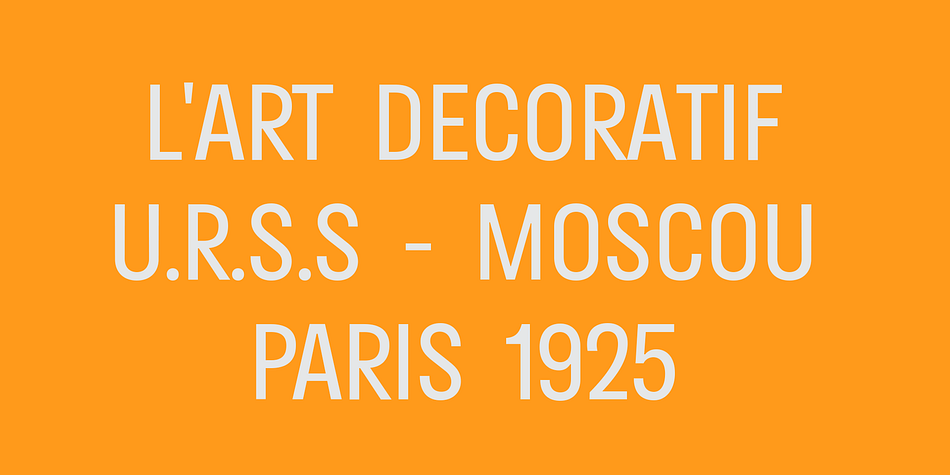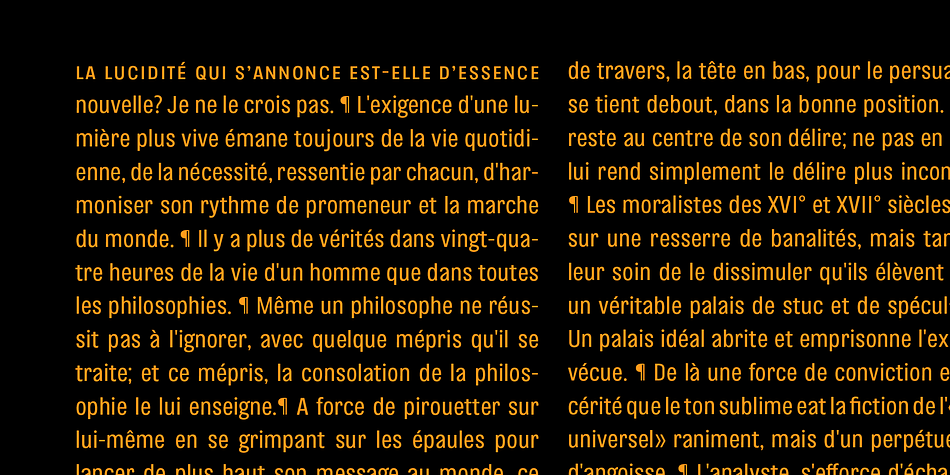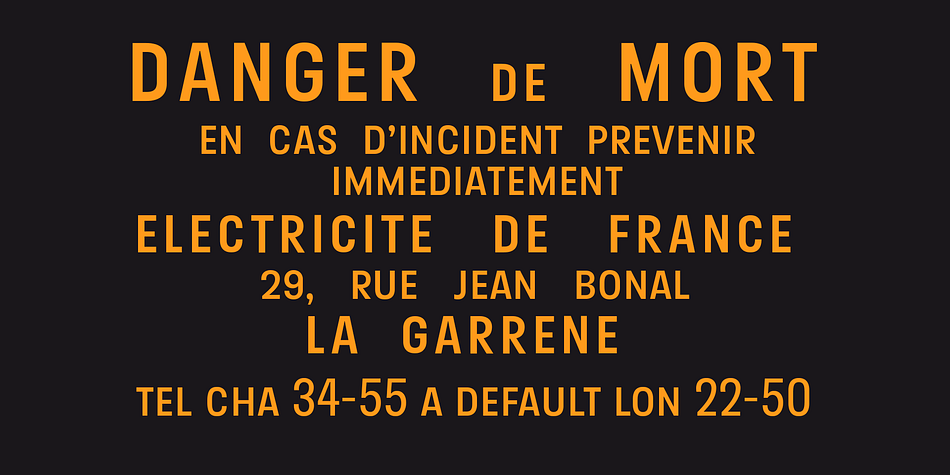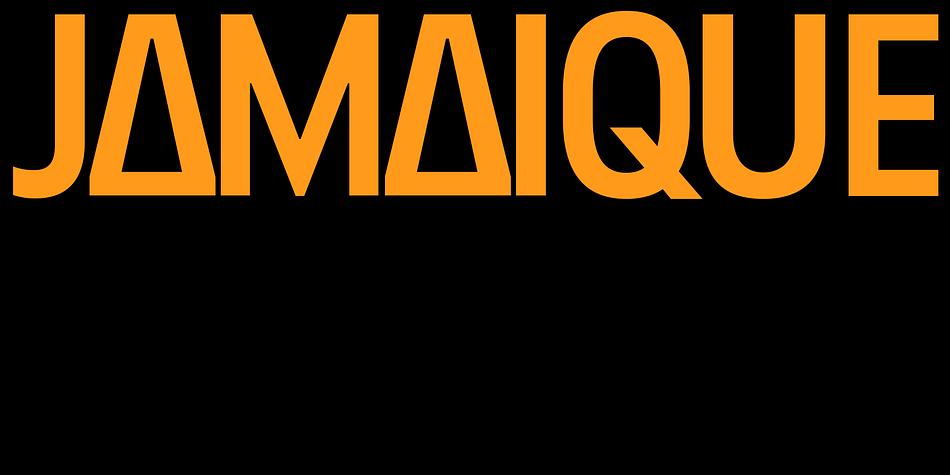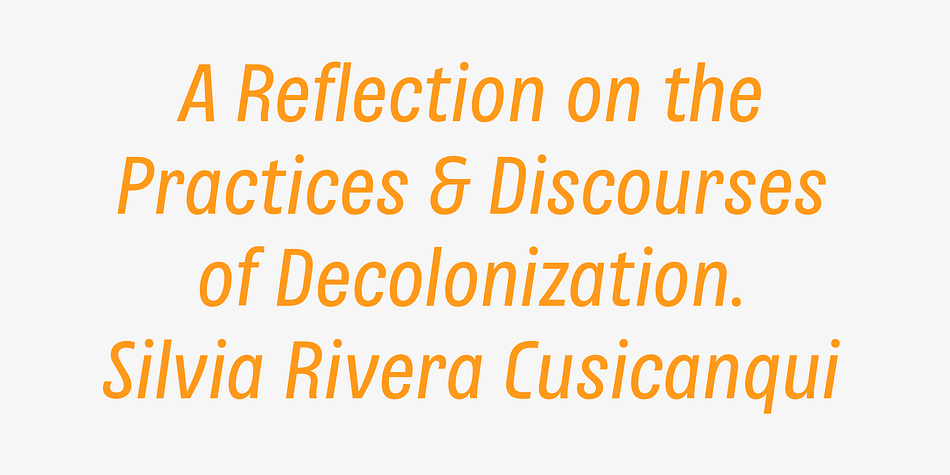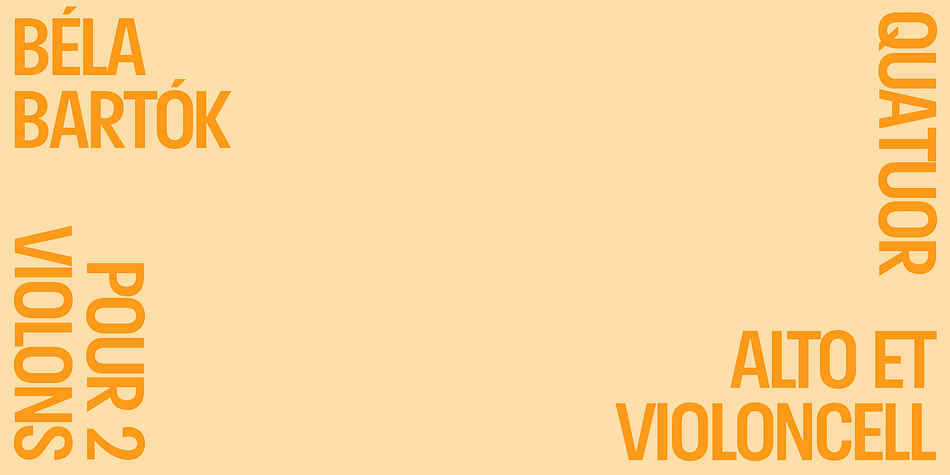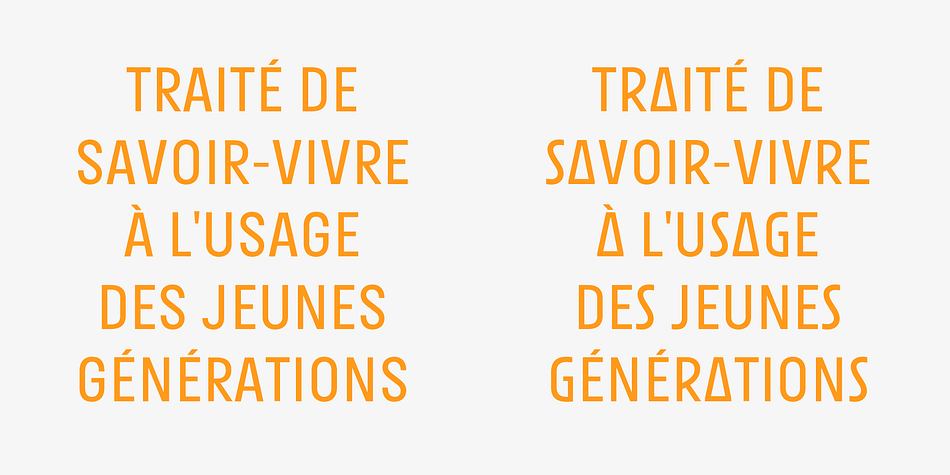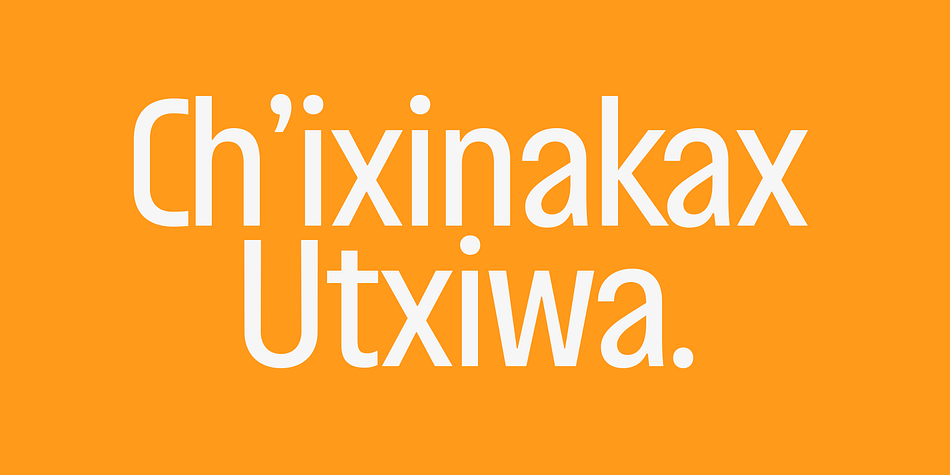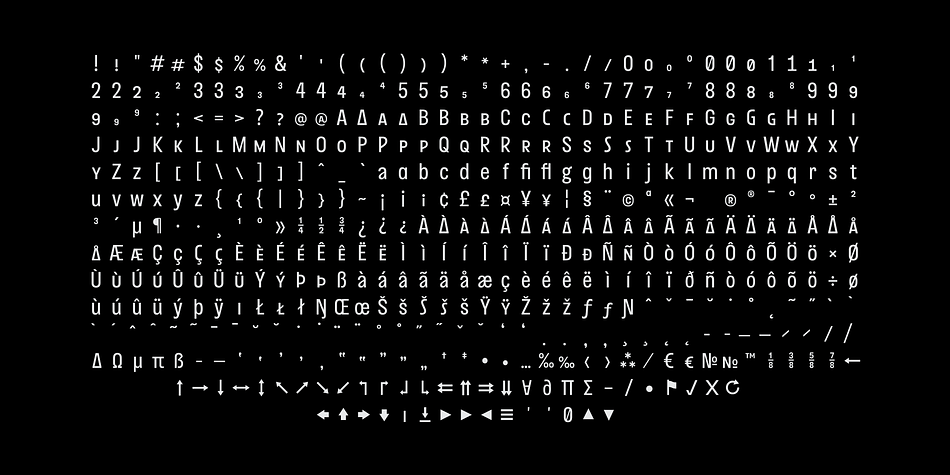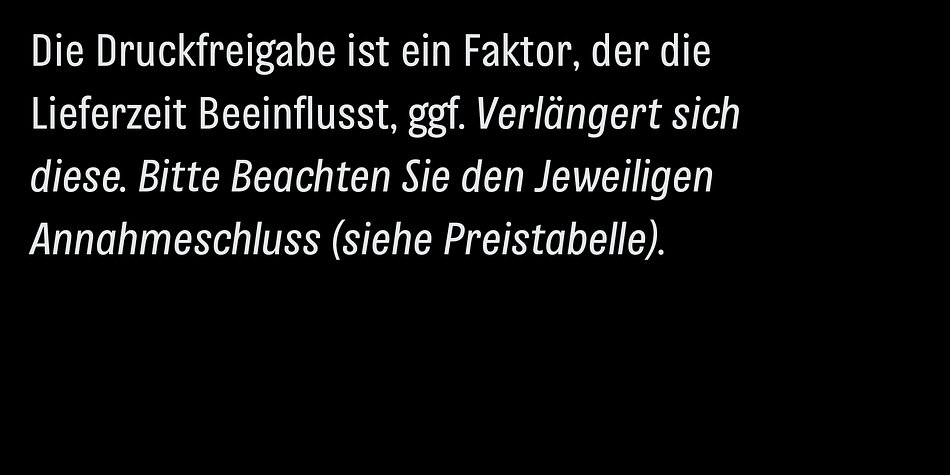
Designed by Joaquín Soto, Cobre is a sans serif font family. This typeface has three styles and was published by Frutitype.
The new typeface by Contreras is a family of three styles, condensed structure and modular appearance. It has been drawn with awareness of the manual stroke of industrial handwriting letterings. The capitals are informed by street signs and political posters of the 70’s. A mix of Art Deco posters and industrial signage. With high frequency textured paragraphs, and economic performance in the style of M.F. Benton’s American Gothics. It is an font made with care of details, aesthetically rooted in the XX century.
In elementary variants for everyday use: regular, italic, bold. Plus stylistic alternates.